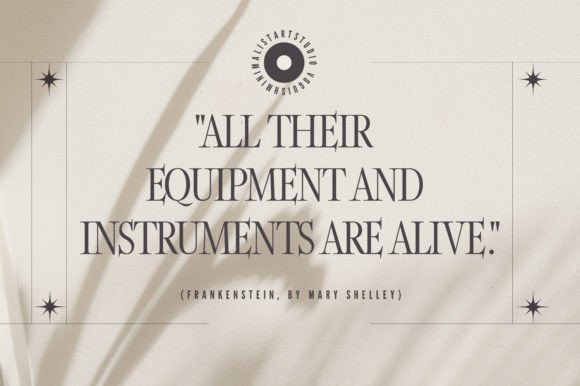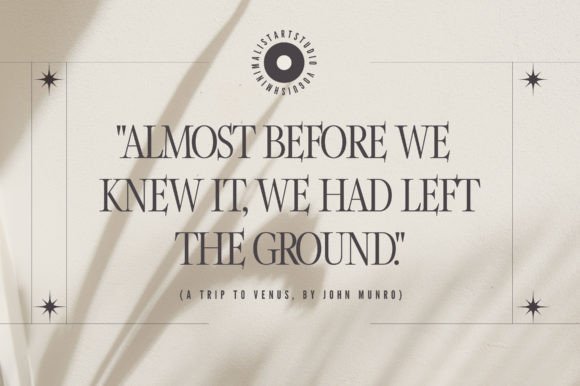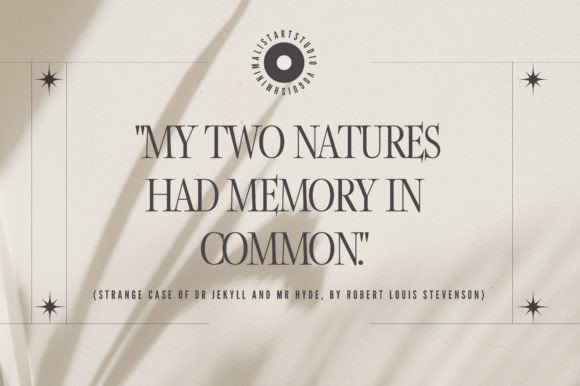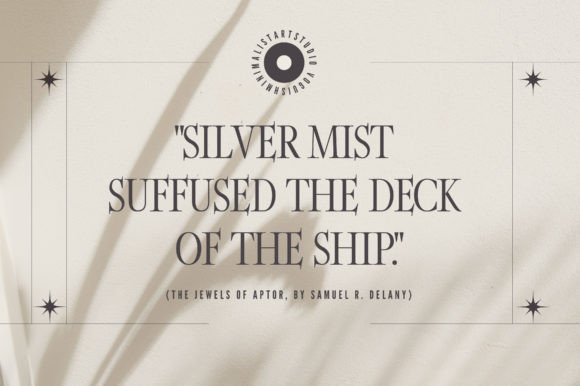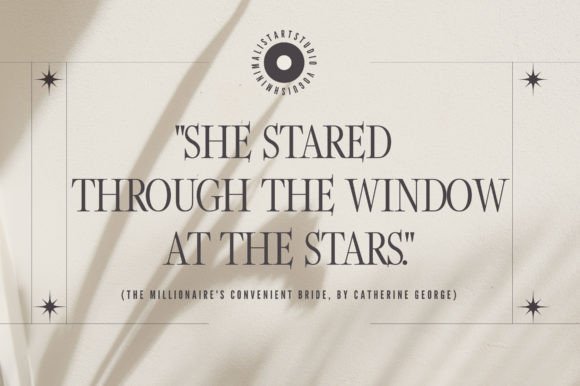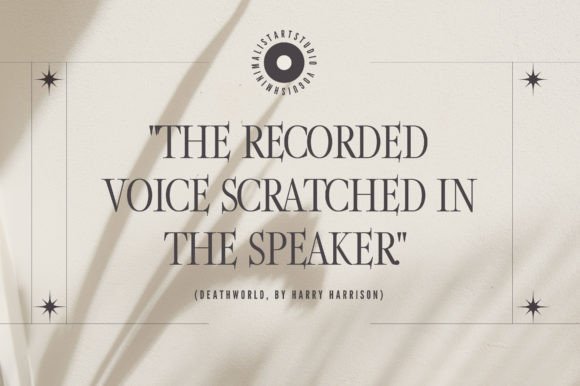
Introduction to Keiser Font
As a designer, there’s nothing quite like the rush of finding the perfect font for your project. You’re browsing through font libraries, scrolling through design resources, and suddenly, it hits you – the perfect font for your high-quality creative project. For me, that font is Keiser Font. Its elegant and stylish design has a way of making any design stand out.
Whether you’re working on a poster, web design, branding, or illustrations, Keiser Font is a versatile and trendy choice. Its classic serif design makes it perfect for a variety of creative projects. And the best part? You can download it for free, making it an invaluable design resource for any designer.
With its transparent background and sleek design, Keiser Font is the perfect addition to any design project. And with its free download, you can experiment with it as much as you want without breaking the bank. Whether you’re a seasoned designer or just starting out, Keiser Font is a valuable asset to have in your design toolkit.
Key Features of Keiser Font
- High-quality, modern design suitable for a creative project, available for free download as a design resource.
- Comes in 5 font styles (Thin, Light, Regular, Bold, Black) to cater to various design needs.
- Features a transparent background, allowing for seamless integration with any design or image.
- Includes a comprehensive character set with over 500 glyphs, supporting multiple languages.
- Designed at 72 dpi, suitable for digital use, including web design, graphics, and digital publishing.
- Perfect for designers and artists looking for a versatile and stylish font to elevate their creative project.
Honest Review: Keiser Font
As a designer, I’m always on the lookout for high-quality design resources that can elevate my creative projects. The Keiser Font has been a great addition to my toolkit, offering a unique and modern aesthetic that’s perfect for a variety of applications.
- ✨ Excellent legibility: The Keiser Font is incredibly easy to read, making it perfect for body text or headings.
- ✨ Versatile style: This font can be used in a range of creative projects, from minimalist designs to bold, eye-catching visuals.
- ⚠️ Limited character set: While the Keiser Font is perfect for English text, it may not be suitable for languages with more complex scripts.
- ⚠️ Transparent background: The font’s transparent background can be tricky to work with, especially when combining with other design elements.
Overall, I’m impressed with the Keiser Font and would highly recommend it to designers looking for a high-quality, creative solution. With a little experimentation, you can unlock its full potential and take your designs to the next level.
Keiser Font
The Keiser Font is a high-quality design resource perfect for any creative project. It’s available for free download, making it an ideal choice for designers of all levels.
Tips for Getting the Most Out of Keiser Font
To get the most out of the Keiser Font, use it with a transparent background to create a clean and modern design. Experiment with different font sizes and colors to add visual interest to your project.
The Keiser Font is ideal for a variety of design projects, including logos, brochures, and business cards. Its high-quality design and transparent background make it perfect for creating visually appealing and professional designs.